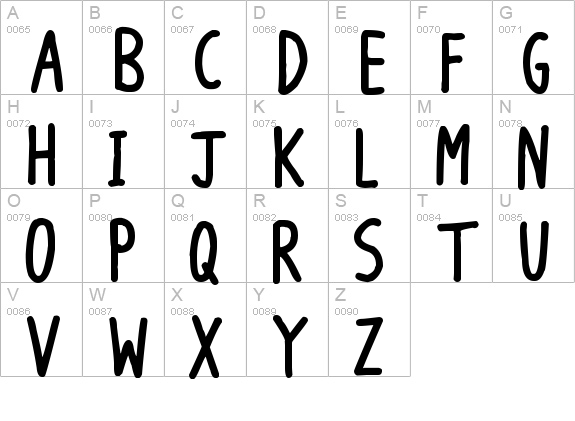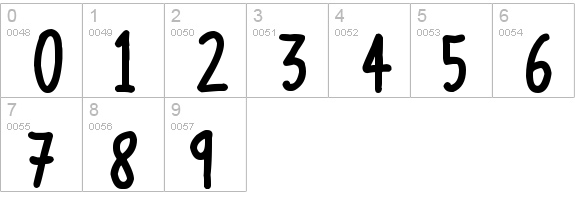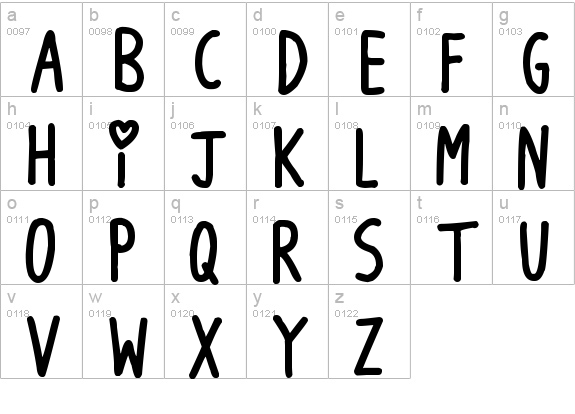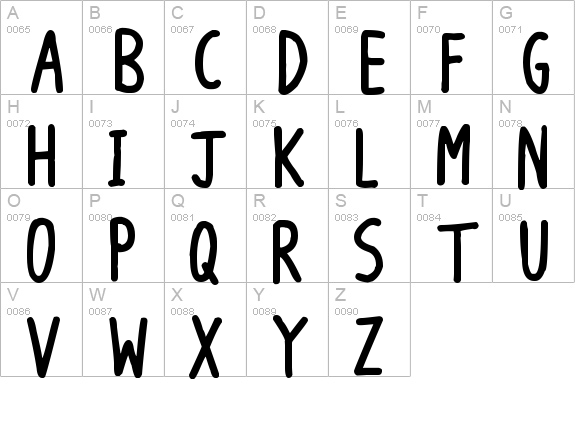
Long Loving Letters Font Details
Long Loving Letters is a free for personal use font in the Script > Handwritten category, designed by Darrell Flood. It has been downloaded 239 times and is available for Windows, Mac and Linux.
Introducing Long Loving Letters font, a beautifully crafted typeface that exudes elegance and charm. With its long and flowing letters, this font is perfect for adding a touch of sophistication to your designs. Whether you are creating wedding invitations, love letters, or any other romantic project, Long Loving Letters font will surely captivate your audience.